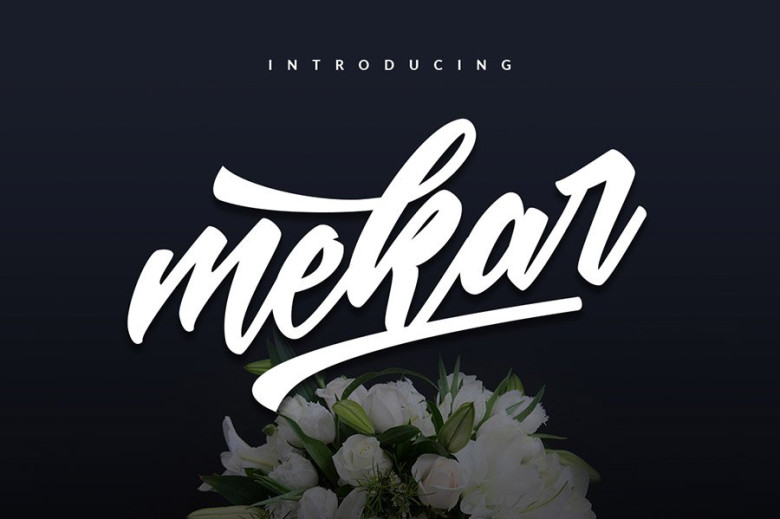
Mekar Script Font
Mekar Script is hand-lettered brush font perfect for your next design project such as logos, printed quotes, invitations, cards, product packaging, headers and anything else you think it may fits.